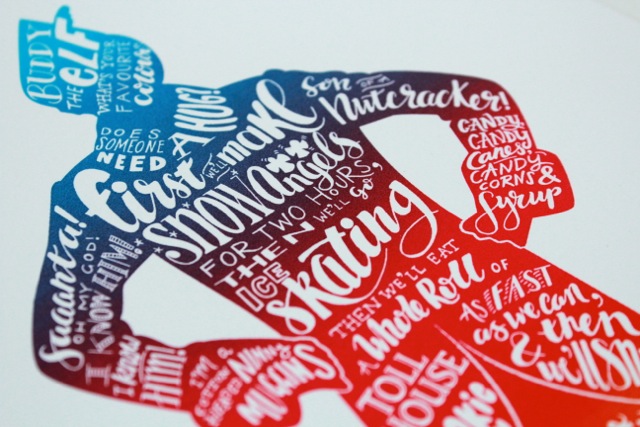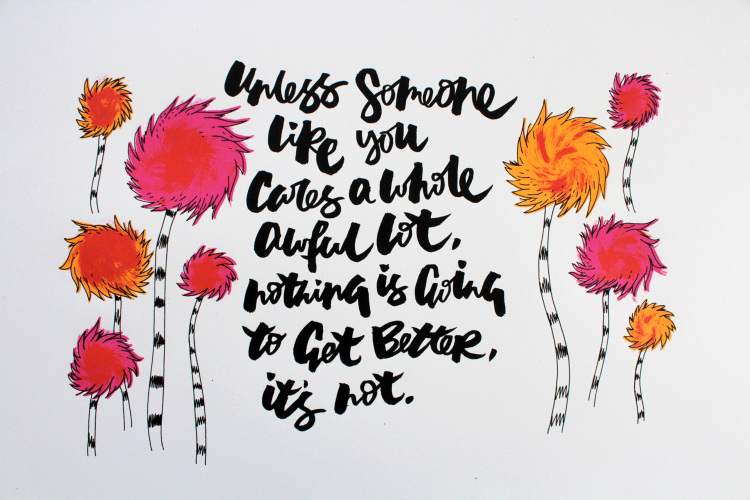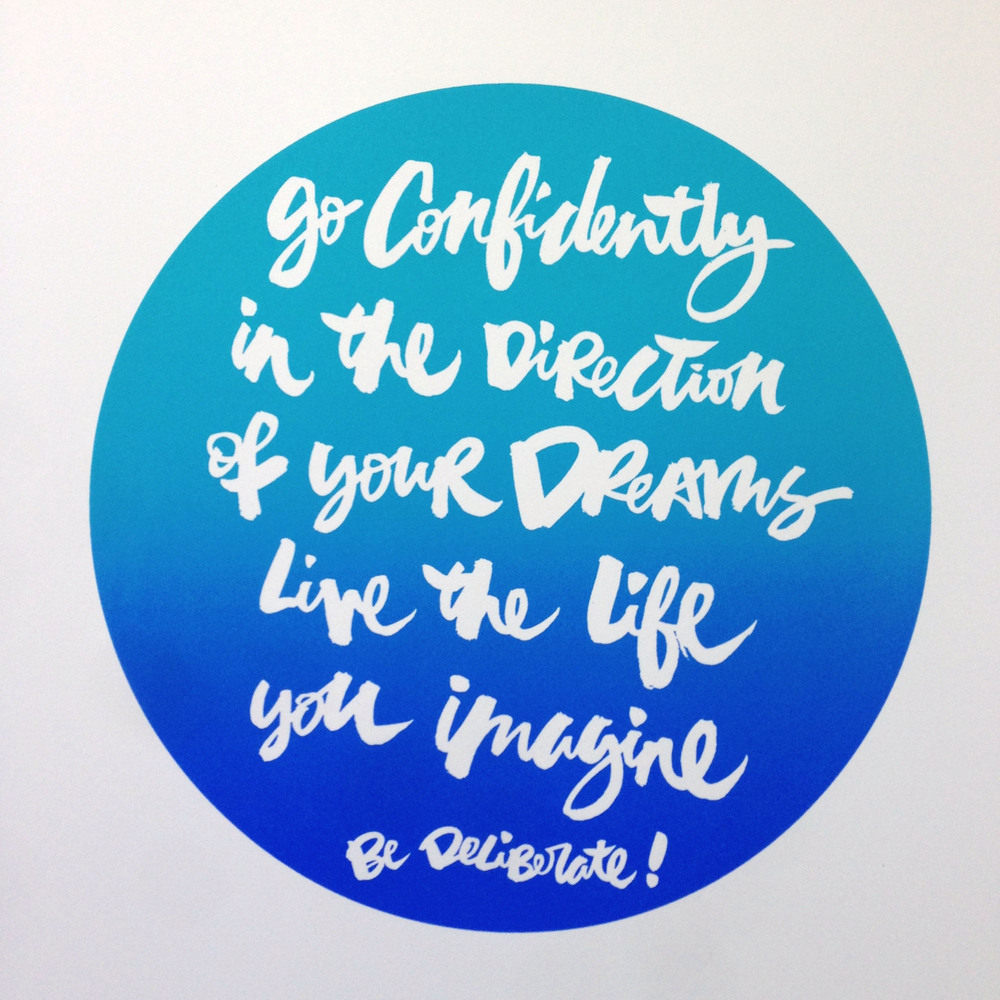
Lettering Legend - Emma Holmes Interview
I'm kicking the first Lettering Legends feature off with an interview. I interviewed brush lettering artist Emma Holmes. You may have come across some of Emma's brush work before on Instagram or Tumblr, or you may have found her Brush Lettering Tutorial website which is full of really useful content. I have two reasons for choosing Emma as Lettering Tutorials first ever 'Lettering Legend'. Firstly Emma is the person who inspired me to start this site, we have been friends a while and she has always been giving me confidence and inspiration. Secondly I thought she really deserved to be highlighted, as she is very inspiring to others also. Emma's Instagram feed is full of lettering she's created that will cheer you up, give you a push, make you smile and help you.
You started exploring lettering and then moved towards brush lettering, tell us more about that?
"Sure! It was actually more like brush lettering, hand lettering then back to brush lettering!
I came across Valentina Harper’s work which lead me to the lovely Kal Barteski and I fell in love with her brush script.
I did Kal’s original script school which is now Life | Scripted with sumi brushes which I adored, but at the time, I wasn’t able to prioritise time to make that practice a habit. Something about it stuck with me though and has never left me.
I can’t truly remember how the hand lettering kicked off, but I ended up getting a stylus for my ipad. I was going through a bit of a tough patch at the time and I just wanted a way to relax and practice lettering easily, without mess, wherever I was. I sketched out something in Paper by FiftyThree then posted it to my Tumblr account where Amy Cao from FiftyThree reblogged it and it got some unexpected love. It ended up being featured on the FiftyThree site (thanks Amy) and it sparked my interest to explore further.
It was an activity I really enjoyed and it seemed to serve other people and inspire them which I loved.
I practiced hand lettering and explored it but found it really hard on my hands and kinda laborious, even though I liked the end result, the process is more important to me. So I went back to the brush.
I was inspired by Neil Secretario, Ryan Hamrick, Joluvian, and during this time of exploration, this time found brush pens.
I did a brushpen workshop with Beppeartz which was awesome and drew inspiration from there but I knew I didn’t want to go deep with the classical style and instead just write in whatever my loose freehand style was. I yearned to be free rather than worry about precise letter forms and getting it “right"! I have a hard enough time with wanting stuff to be pefect as it is and that sucks the joy out of any activity, so I went with the freestyle expression route.
I kinda crossed the brush pens with Kal’s sumi style and came up with my own expression.
James Victore has been a big influence, reminding me to “Feck Perfuction”. I no longer follow rules of where the thicks and thins go, I just write, it’s more art to me than lettering. It just happens to be words.
The reason I love brushes so much is beacuse it is a smooth and flowing motion. I find it rhythmical and calming and like mediation almost. I love all things like this - skateboarding, surfing, music, and it just seems to fit in with who I am."
Have you had any inky accidents?
"Most of my work is inky accidents! Apart from that, nothing major, but I’ve definitely got spots of ink on some of my clothes."
You've created some lovely, and very unique screen print work using lettering and themes from the Christmas movie Elf and the Lorax movie. How did these ideas begin?
"Thanks! Elf is one of my all time favourite movies. I just love Buddy the Elf. His lines are something me and my friends quote to each other to make each other laugh, so I thought that it would be awesome to have them in one place as a piece of artwork. I’m not sure how I came up with the idea, possibly at the time, I was looking at hand lettering inspiration and there seemed to be a trend of silhouettes with lettering in, so I thought I would give it a go, Emma style. I don’t really like to follow trends but in this case, I seemed to get away with it and make it my own. I was really fortunate to have Dave Fortune from UWE invite me in to try screen printing and he was the one that came up with the 3 colour blend which really brought it to life! Cheers Dave!
For the Lorax print, my sister in law told me about the quote which she said she loved and told me about the movie, which I also loved. It was her birthday coming up and so I set about creating something for her around that. I traced the trees from the original artwork. This one was screen printed with the help of John Lynch, a previous student of Dave who was running a workshop which I attended.
I love how movies can inspire us, make us laugh and most of all remind us not to take life too seriously. I’m a big kid at heart. Don’t get me started on Frozen. Oh wow, I could totally do a Frozen piece! I’m in love with Olaf."
If you could only ever letter one word again, what would it be and why?
"Supercalifragilisticexpialidocious. Because its the awesomest word ever, Mary Poppins (and Julie Andrews) is a bad ass, plus it’s got a ton of letters in so I’d never get bored. Plus it’s a song. Who doesn’t love that word? It inspires magic!"